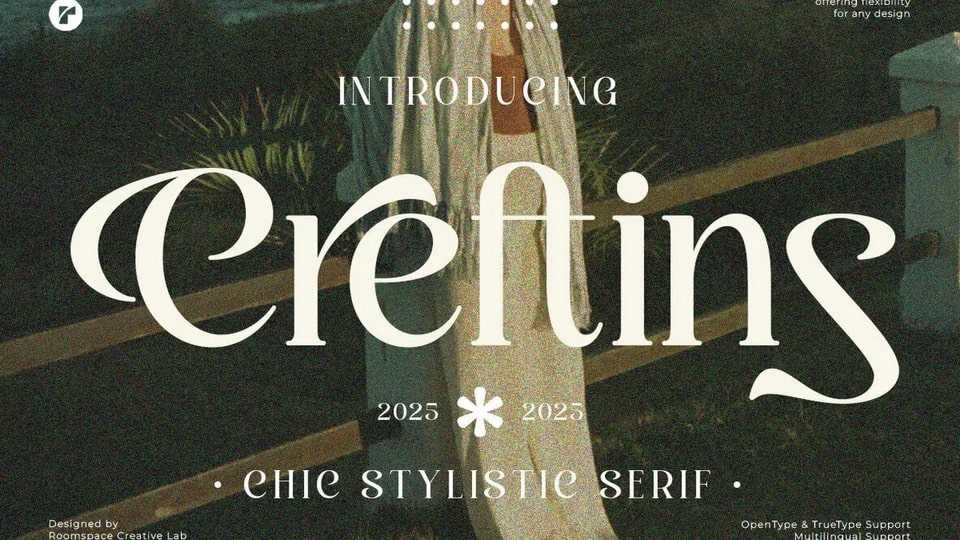
Download Creftins font, a sophisticated serif typeface that seamlessly blends modern luxury with classic refinement. Designed for those who appreciate stylish typography, Creftins offers elegant letterforms with a contemporary edge.